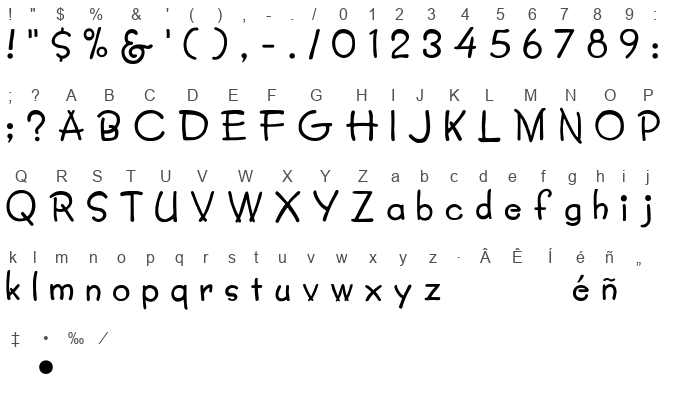
Done by Walter Kafton-Minkel 1991. Revealed by Philippe2 in this thread. Font for the children's book Here Comes Peter Cottontail by Steve Nelson, Jack Rollins, Pamela R. Levy (Illustrator), 2002.
Not sure if that is this font, or linux, but the preview generator kept screwing up when lower case letters are used. THe spacing between letters is HUGE. is there another version?
Momscorner has it too. And Fonttrader lists it as Secondgrader. Maybe one of these work? Here it is told also as a font called "Crayron Normal" (...Crayon...?).